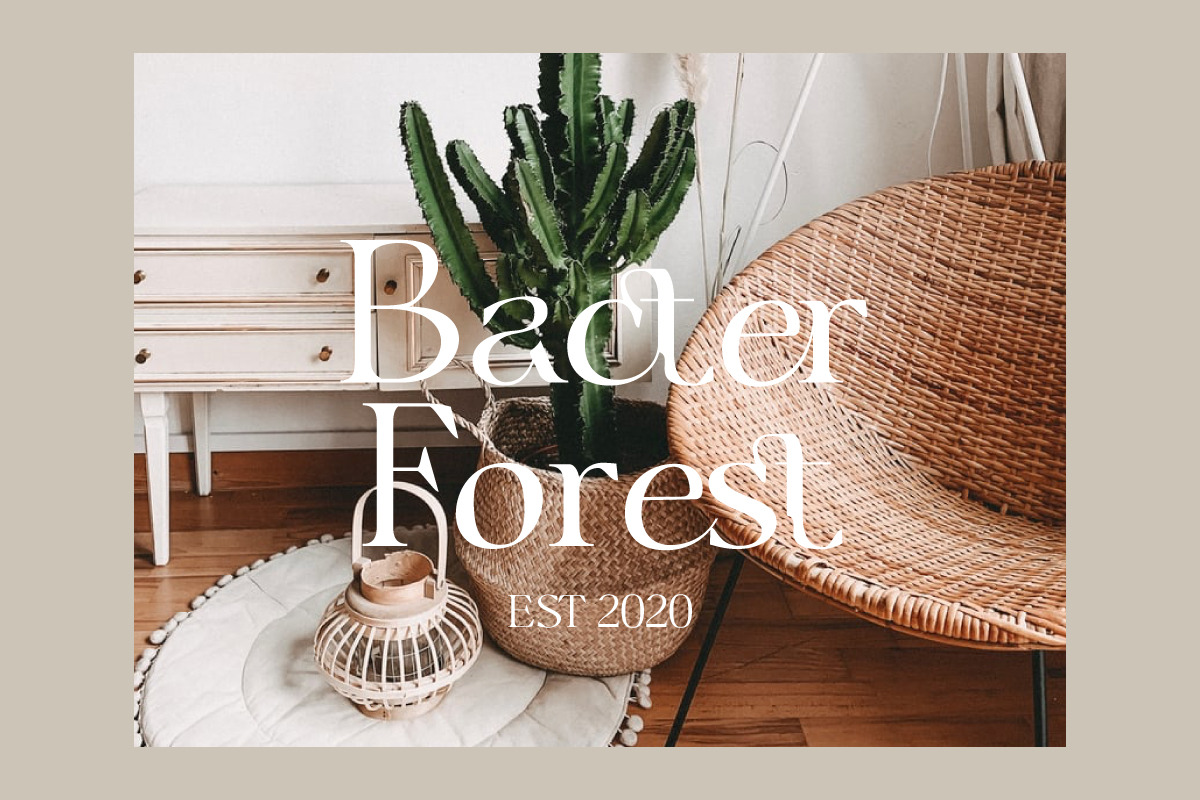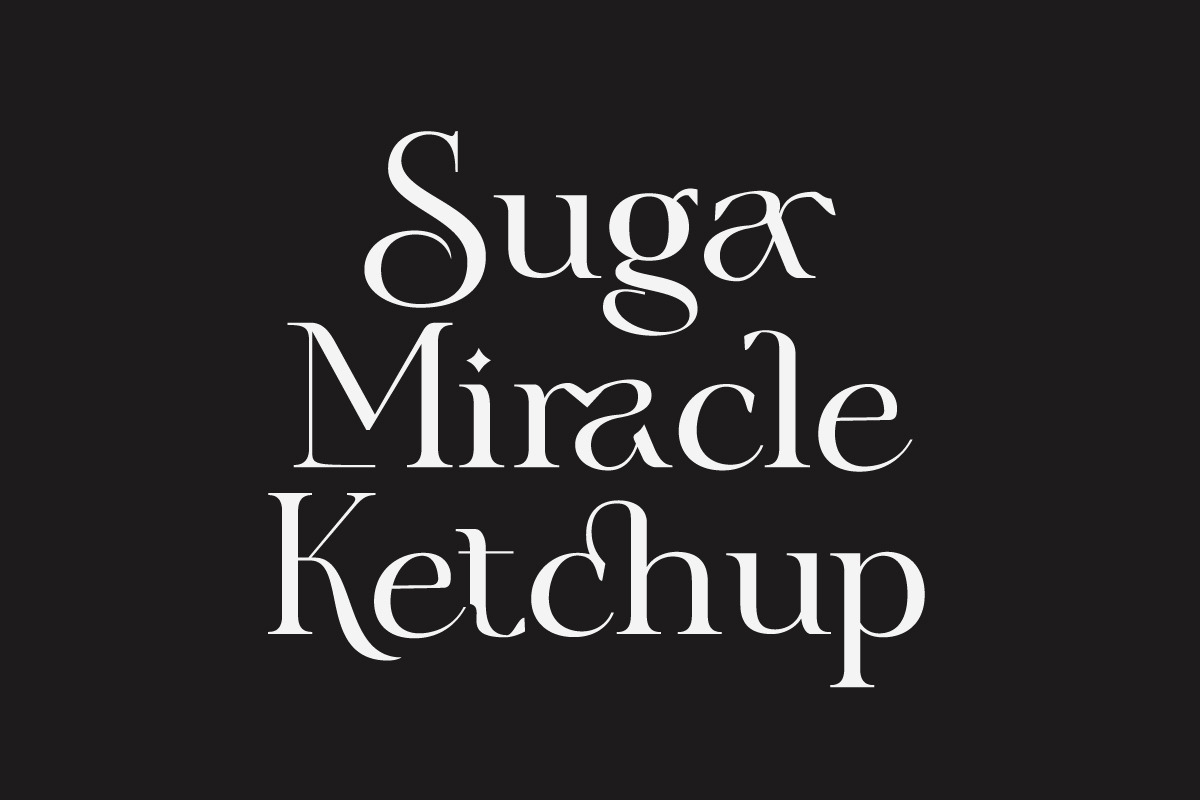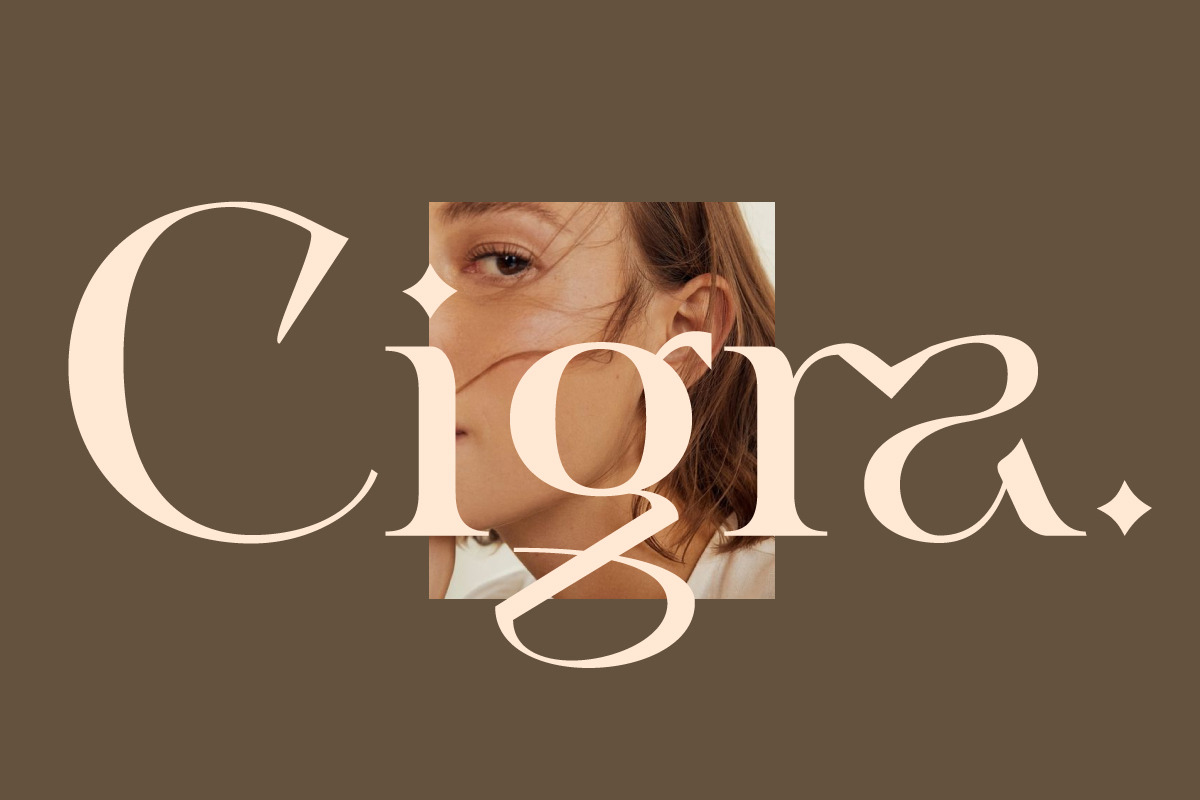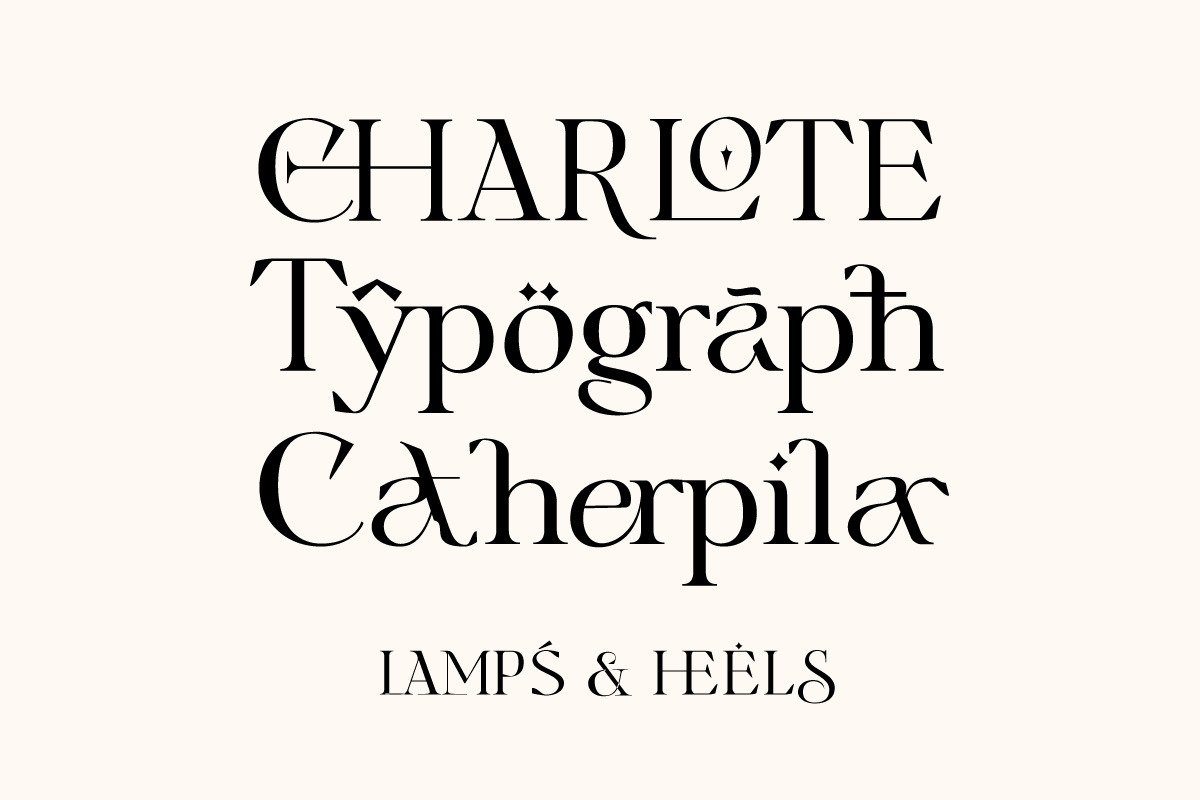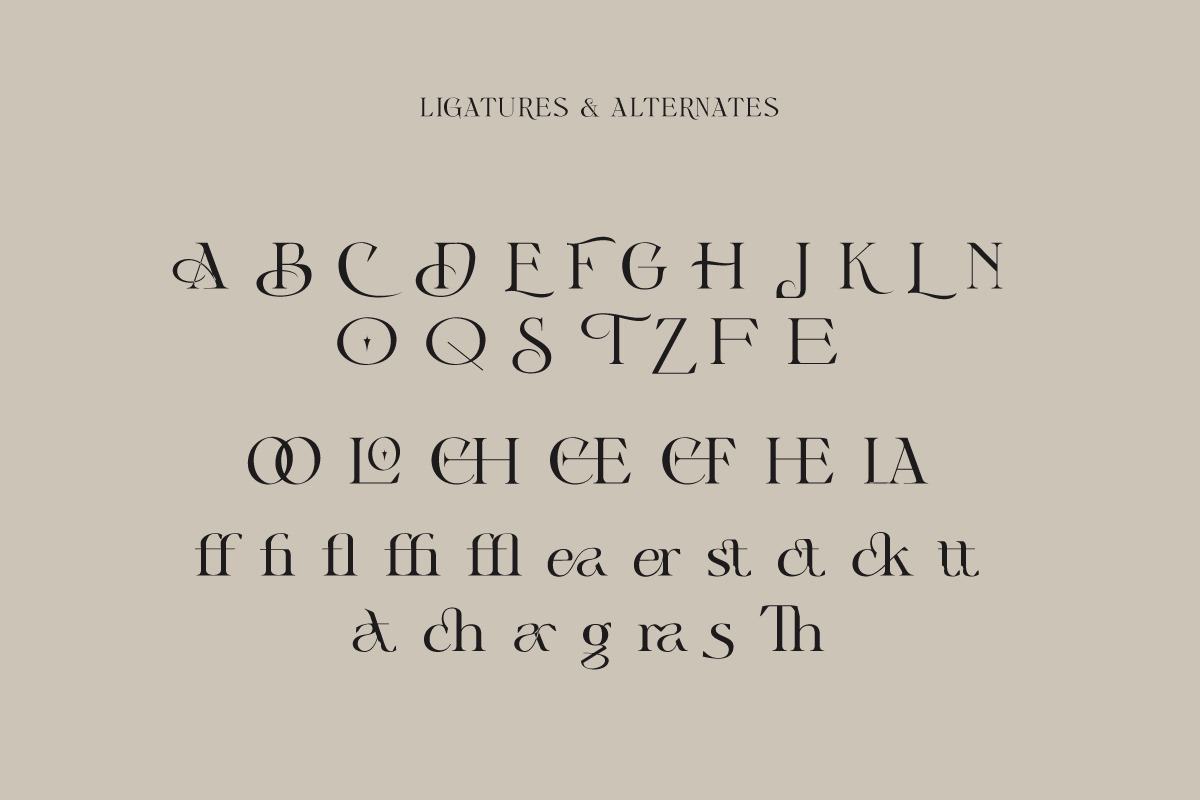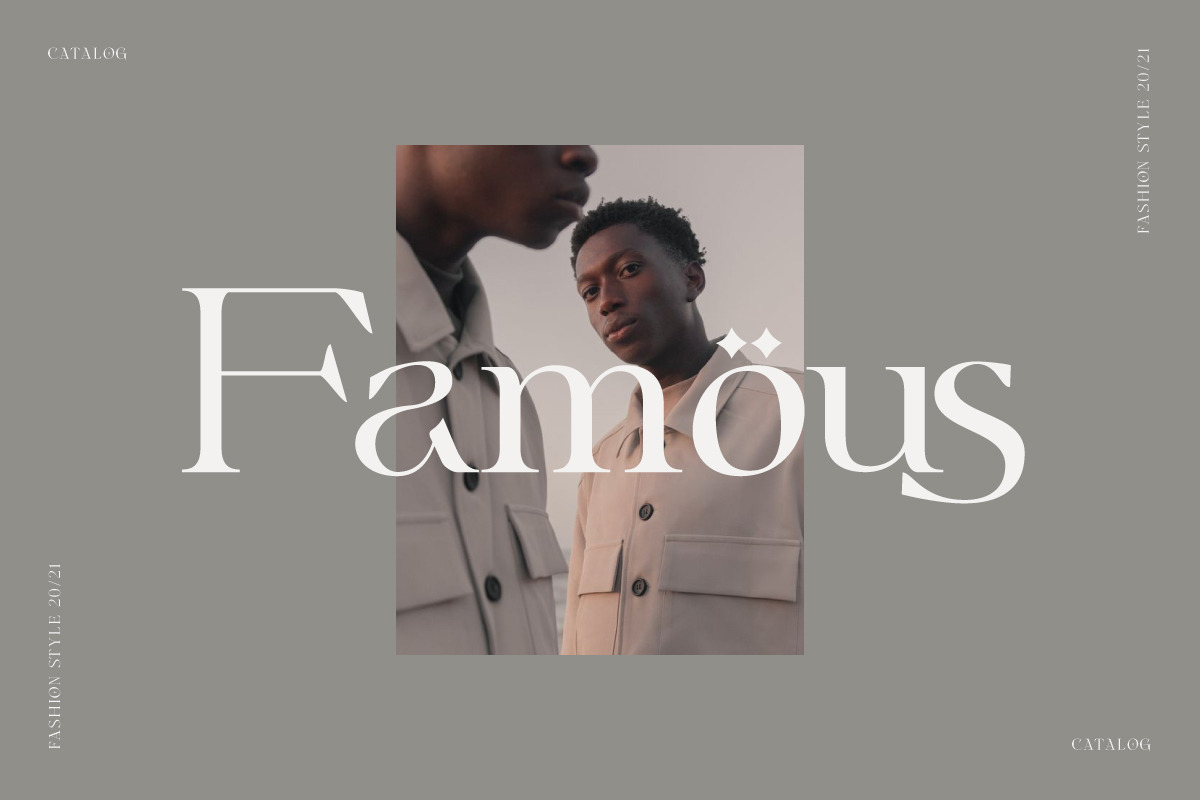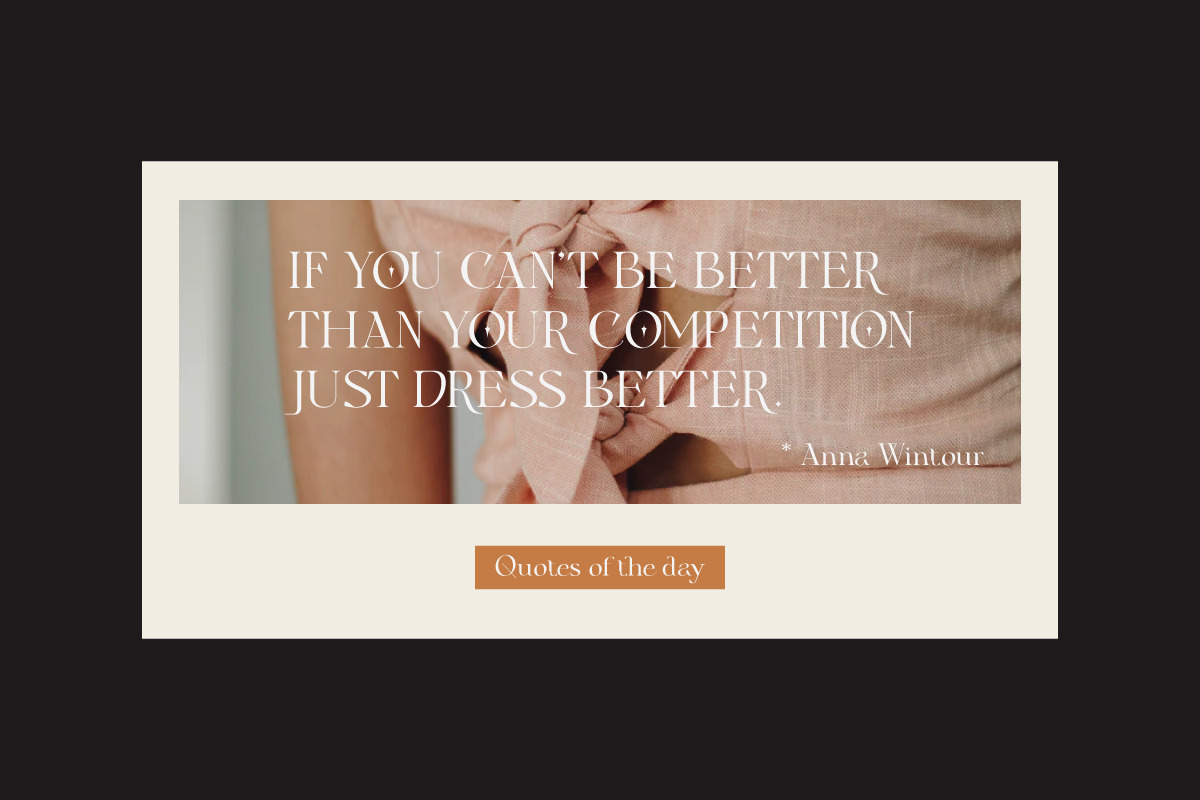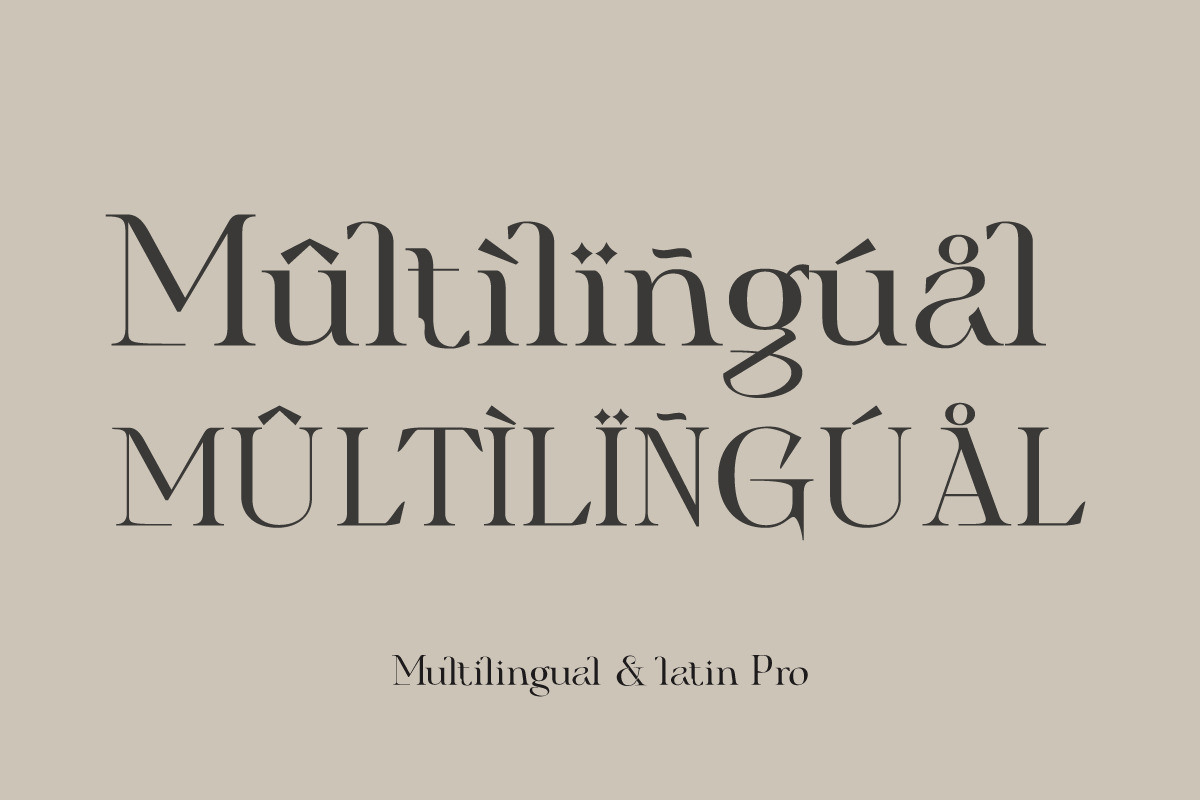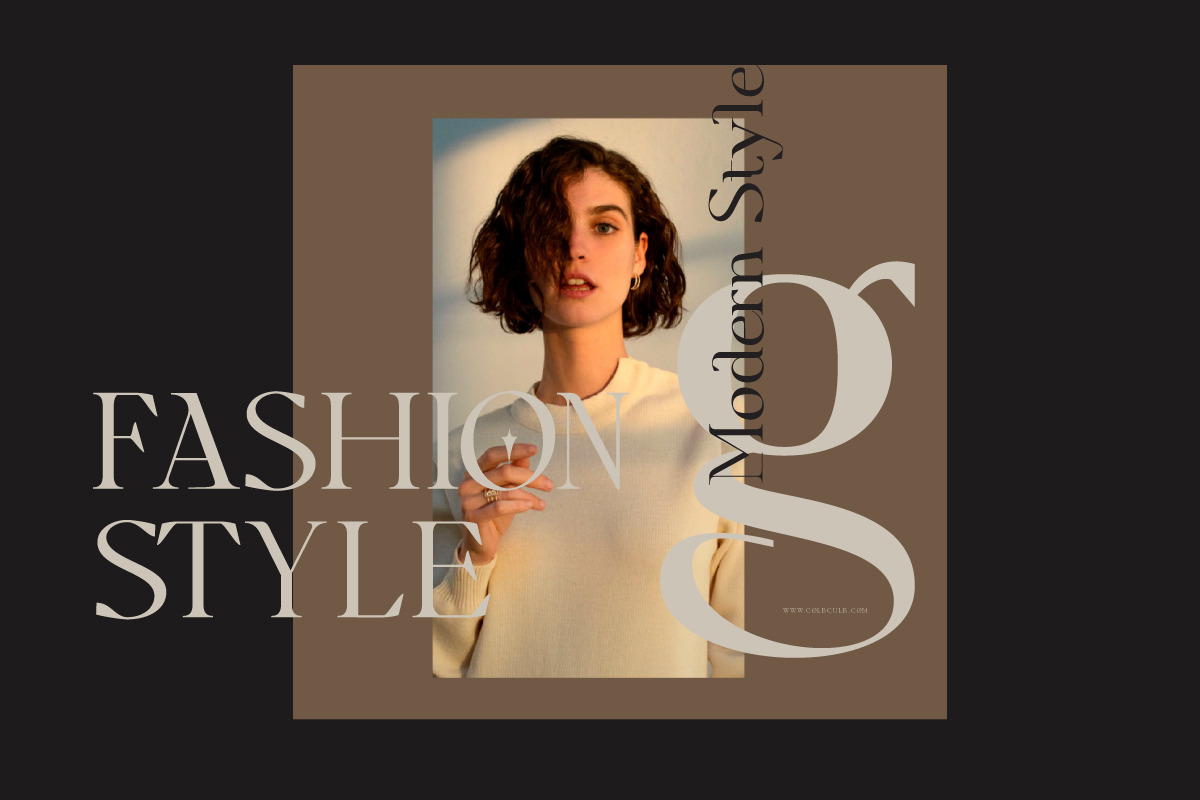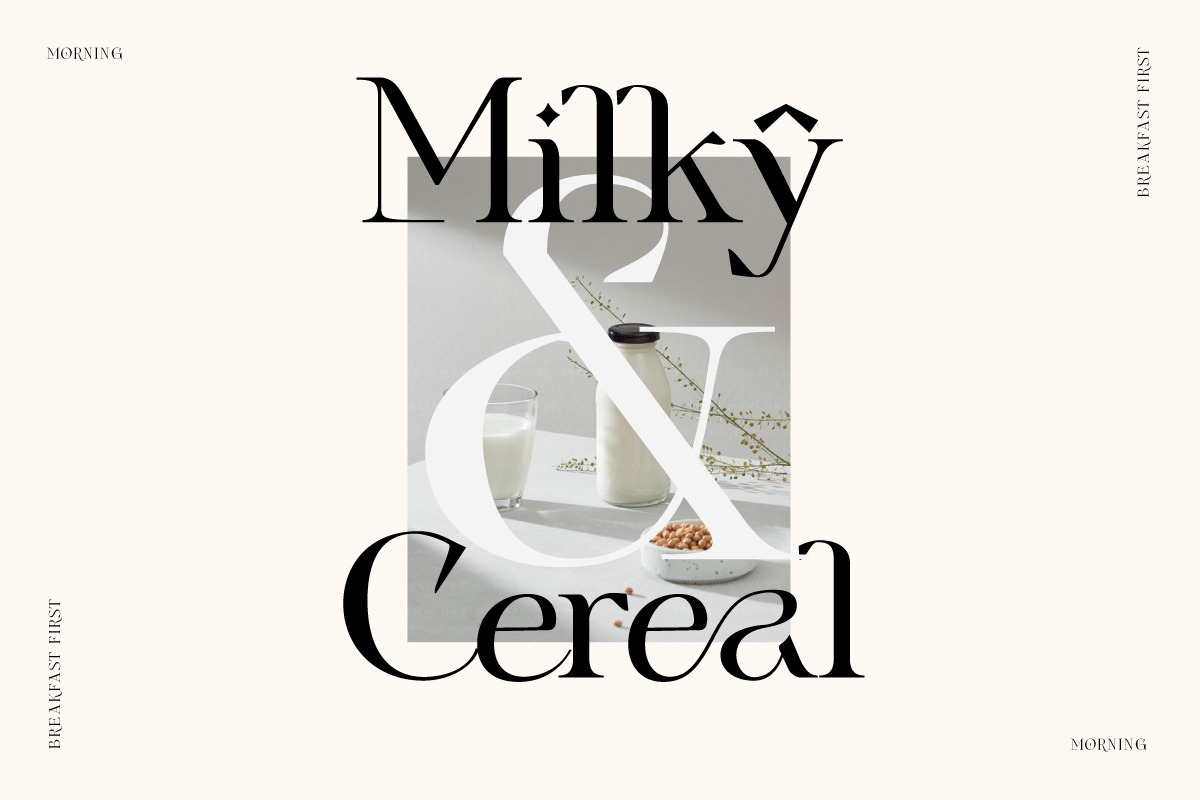
Cigra - Stylist Serif With Ligature
Cigra is a standout display font that is an ode to fashion typography in present day. It's elaborate curves and unique shapes make it perfect for headings, logos & wedding invitations. Cigra is all class so if you want a stylish font that is guaranteed to draw the eye, then this is it!
- Hundred of glyphs
- Alternates and Ligatures
- Punctional
- Fonts include Multilingual Support
- Extended Latin